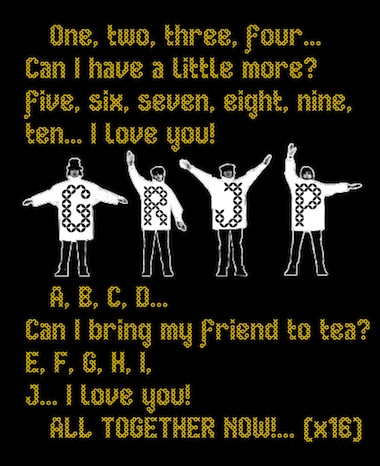
• This is an attempt to make a more rounded font, based on the beautiful crossings that I found in "Eenvoudige Batik" by Adien Gunarta. I know some glyphs are the sames, but make this font was very nice for me. Adien, I hope it will not displease you after all.
This is an attempt to make a more rounded font, based on the beautiful crossings that I found in "Eenvoudige Batik" by Adien Gunarta. I know some glyphs are the sames, but make this font was very nice for me. Adien, I hope it will not displease you after all.
Nice and simple design that harness the power of FS. The letters look natural, elegant, as if made of flower petals. 10/10
Have you also seen the strings of flowers within the glyphs? That was just the image that defined in my head the new treatment for this font. It appears that convergent thinking is not uncommon in FS, and often happens between you and me. I'm glad. Thank you for your support and coments.
i just see it.. Wow! It's much better than mine! :D
It's completely awesome structured. It's more readable!
Thanks, Adien. The basis is yours, I only put the leaves here.
very creative...
lovely one, I love this pattern :)
Merci bien, comrade. Today (19th march) is The Father's Day in Spain, that was the reason for the sample.